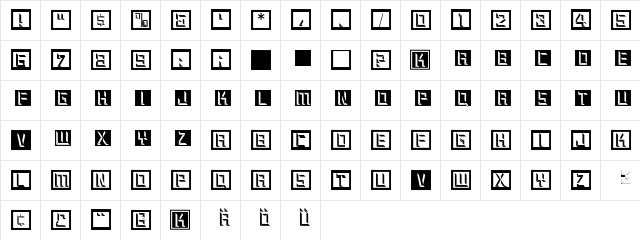
DigitalisHistory Regular
Design Context for DigitalisHistory Typeface
DigitalisHistory has a distinctly futuristic character, with geometric precision and clean angles that feel at home in technology, gaming, and sci-fi contexts.